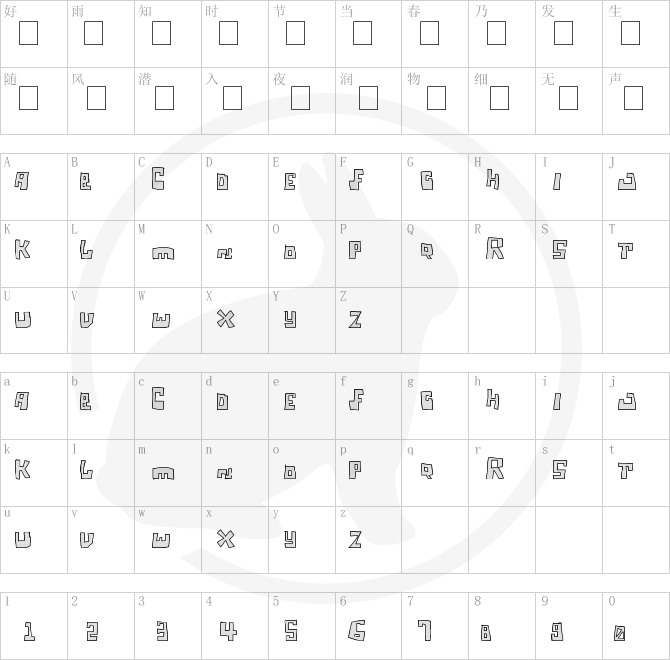
- Font Name:Tagi Securite
Tagi-Securite.ttf is a very beautiful artistic font, Tagi-Securite.ttf is widely used in the design and printing of various books and pictures,Tagi-Securite.ttf has a strong visual impact,Tagi-Securite.ttf is a commonly used font in newspapers, magazines and books, and is used in posters, e-commerce Poster design, store design, logo design, font design and other fields.Tagi-Securite.